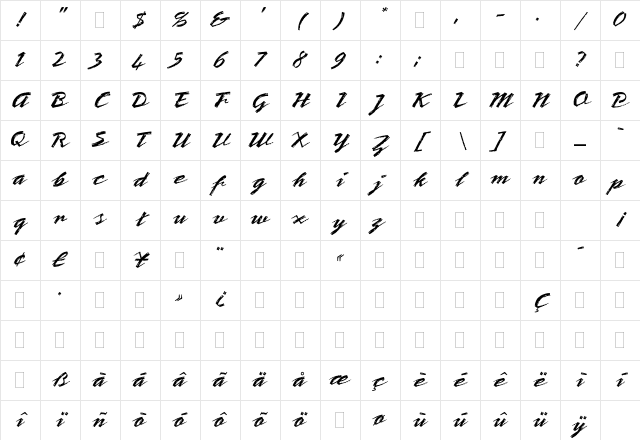
Bronx Plain
Design Context for Bronx
Bronx is a composed and adaptable typeface that performs quietly and consistently across a wide range of design contexts.